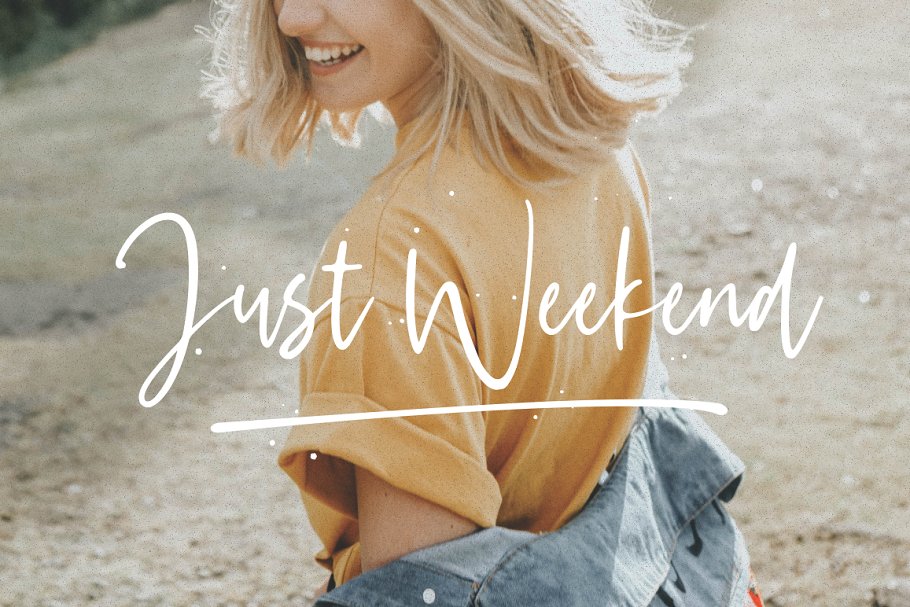
Introducing Handsel - Handwritten Font, the ultimate choice for adding a touch of elegance and authenticity to your creative projects. Crafted with love by the talented Yusron Billah, this font is a seamless blend of natural beauty and modern appeal.
Are you tired of generic and lifeless fonts that fail to make an impact? Handsel is here to change the game. With its unique script style, this font brings a breath of fresh air to your designs, leaving a lasting impression on anyone who lays eyes on it.
Whether you're working on a logo, invitation, stationery, or wedding design, Handsel will effortlessly transform your vision into reality. Its graceful strokes and fluid lines create a sense of sophistication and charm that captures attention instantly. Make your social media posts, advertisements, and product packaging stand out from the crowd with this one-of-a-kind font.
But that's not all – Handsel goes beyond aesthetics. It is meticulously designed to offer versatility and functionality. The ligature feature adds an extra layer of authenticity, ensuring that each character seamlessly connects with the next. This attention to detail sets Handsel apart from other handwritten fonts, making it a valuable asset for any designer.
Do you work with international clients or cater to a diverse audience? Handsel has got you covered. With its multilingual support, you can confidently communicate your message in various languages and reach a wider audience. Break down language barriers and expand your creative horizons with this font.
Whether you're a professional designer or a passionate DIY enthusiast, Handsel is the secret ingredient that will take your creations to the next level. Its versatility allows it to shine across a wide range of projects, from labels and photography to watermarks and special events.